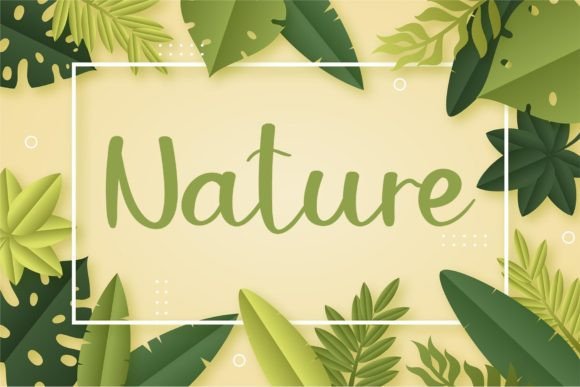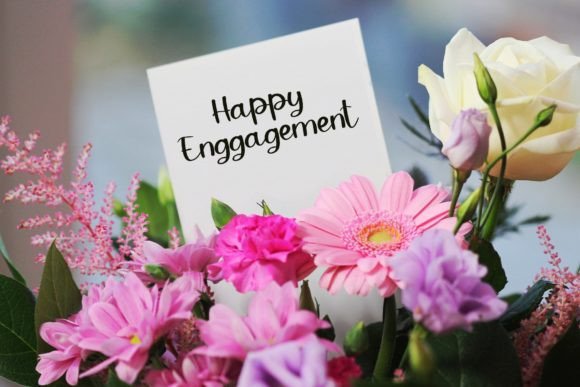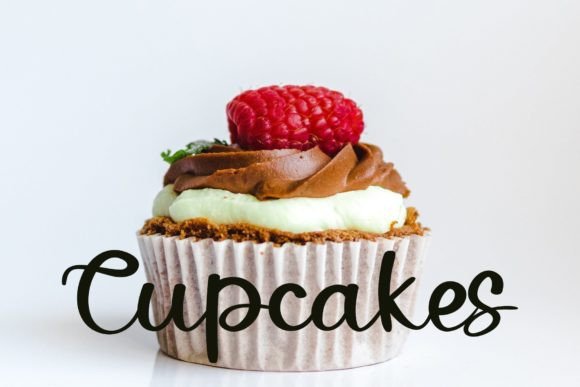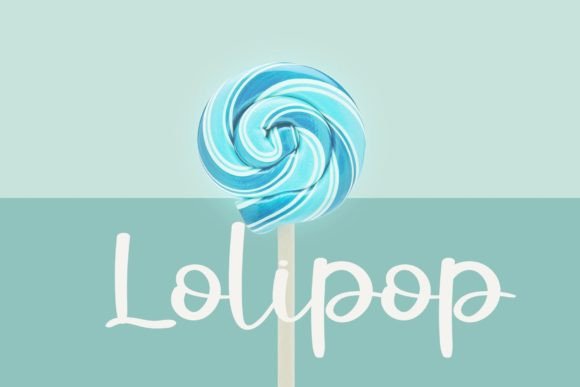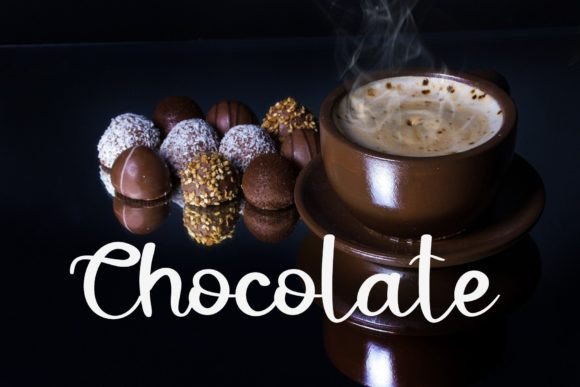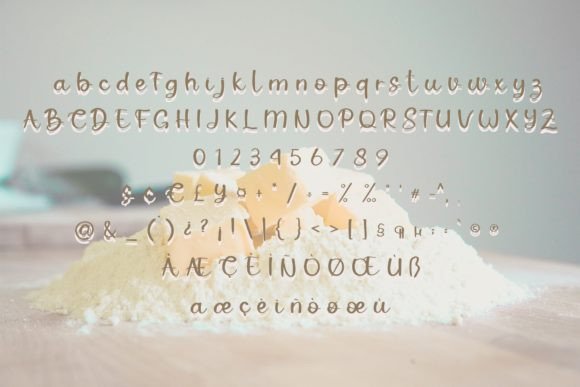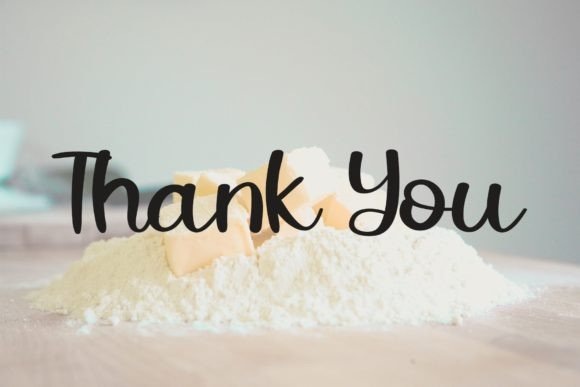
Butter Font
Butter is a delightful and friendly handwritten font that brings a sense of fun and charm to your design projects. With its playful and unique charm, this font is crafted to turn any creative idea into a standout creation. Let Butter inspire you and infuse its lively energy into your designs, creating lovely and memorable visuals.
The font’s fun and friendly nature make it a versatile choice for various design applications. Whether you’re working on branding, social media graphics, posters, T-shirts, invitations, or any other project, Butter adds a lighthearted touch that captivates attention and creates a positive and inviting atmosphere.
Butter’s handwritten style contributes to the creation of personalized and engaging designs. The playful characters and flowing strokes make it easy to infuse a sense of warmth and character into your messages, making them more relatable and appealing to your audience.
In the realm of branding, Butter stands out as a font that conveys approachability and creativity. Whether you’re designing a logo, business cards, or promotional materials, Butter’s fun and friendly demeanor add a distinctive flair to your brand identity, making it memorable and relatable.
Butter’s versatility extends to various design contexts, making it an excellent choice for turning ordinary ideas into extraordinary designs. Its adaptability allows it to complement different visual styles and themes, giving you the flexibility to explore and experiment with your creative concepts.
In summary, Butter is not just a font; it’s a design companion that brings joy and friendliness to your projects. Whether you’re creating branding elements, social media graphics, or any other design requiring a playful touch, Butter’s fun and friendly handwritten style will help your ideas stand out and leave a lasting impression.